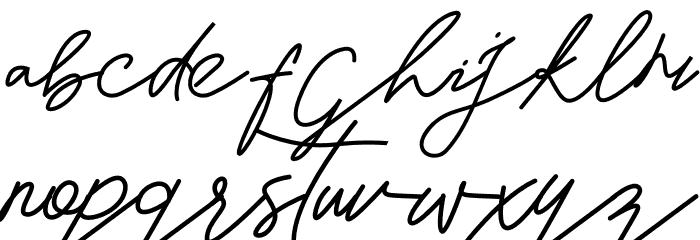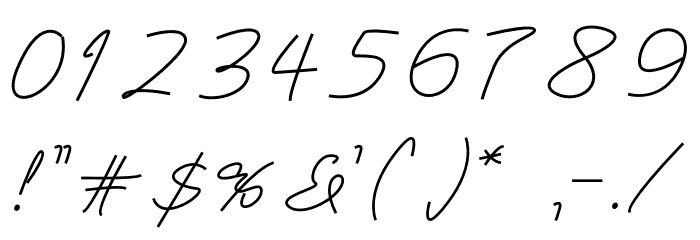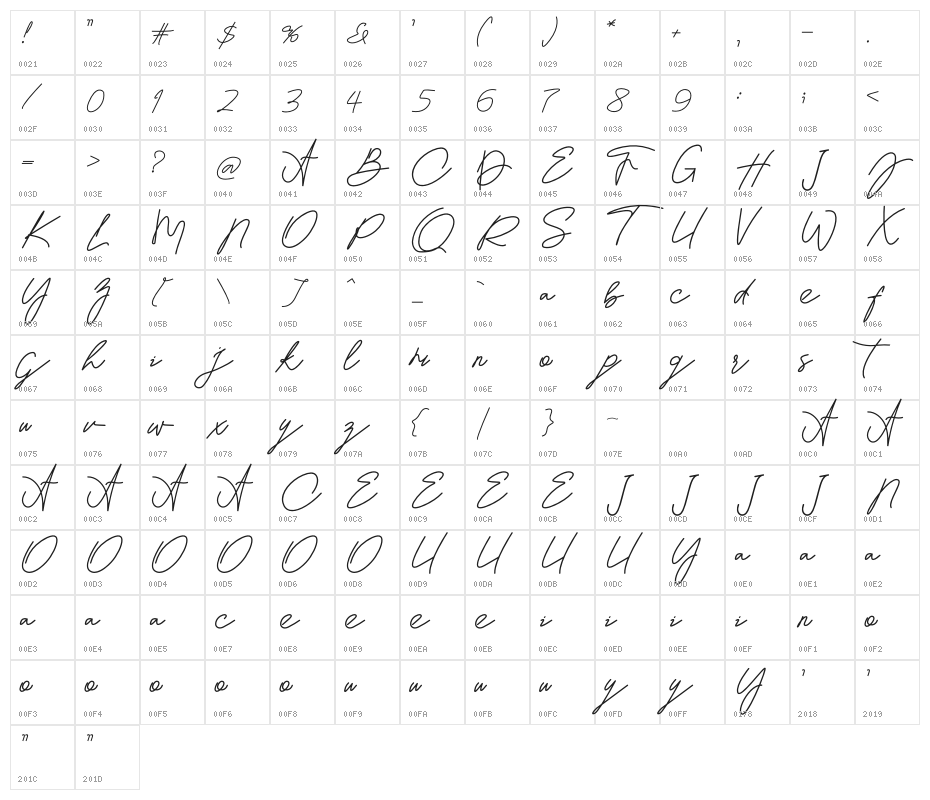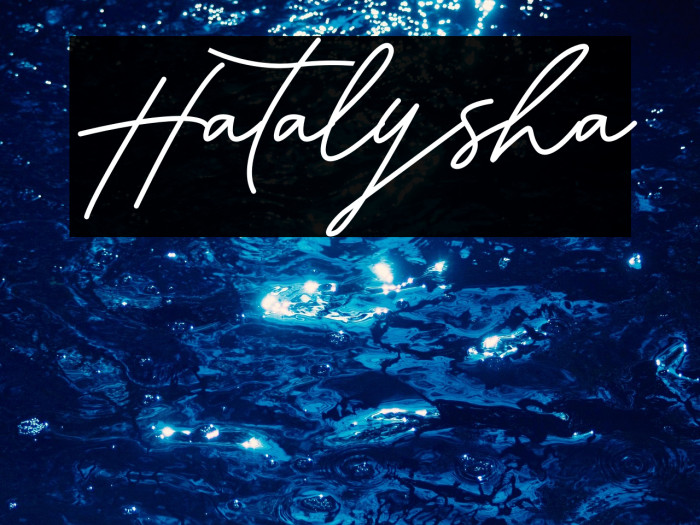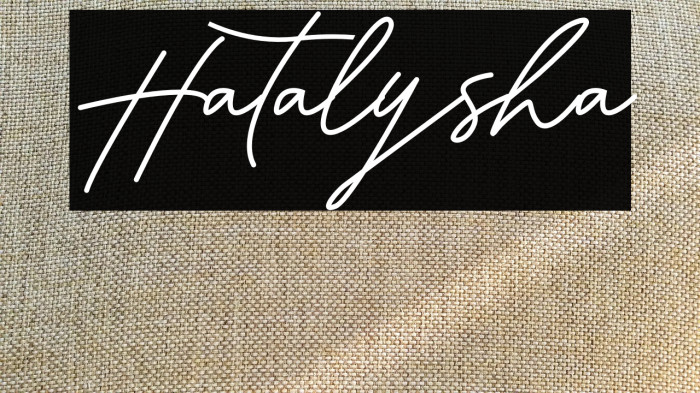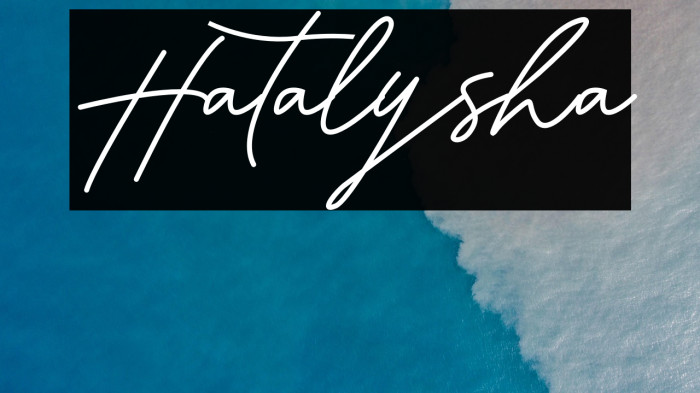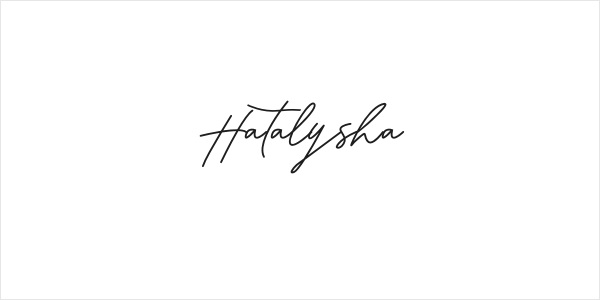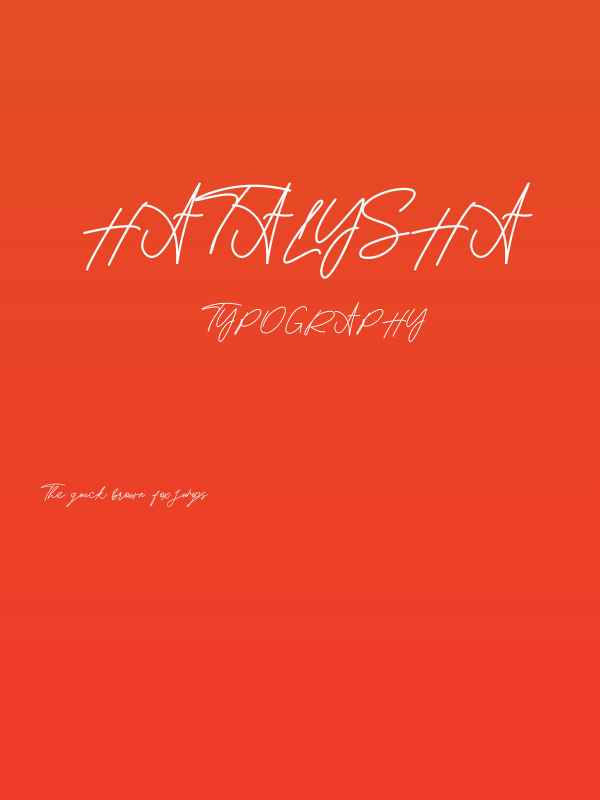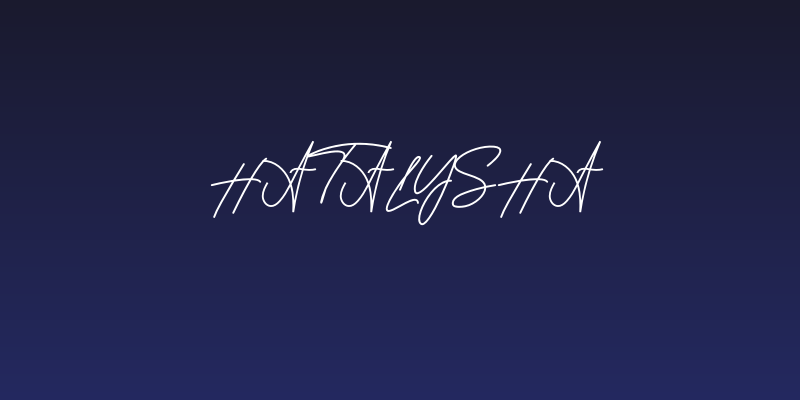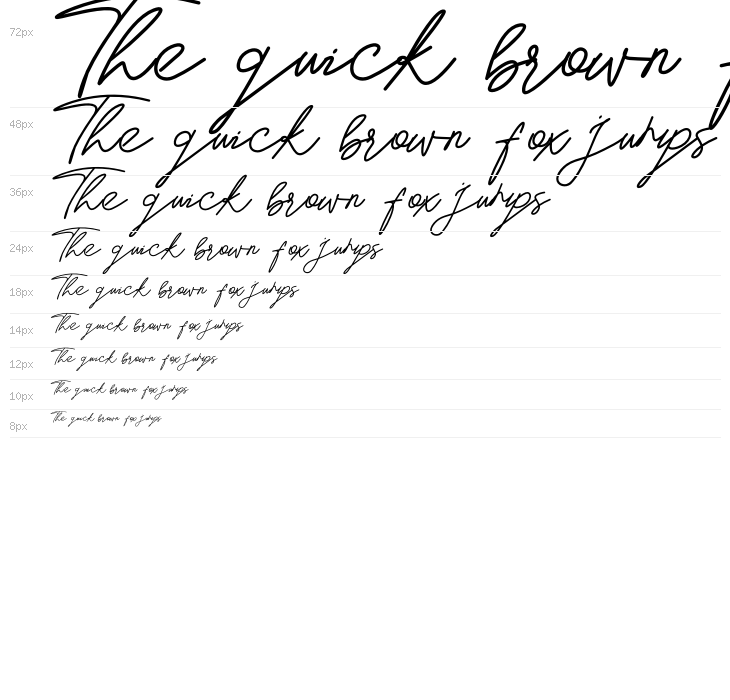
Hatalysha Font
This font features a fluid, cursive style that mimics natural handwriting. The letters are elegantly connected, with a consistent slant that adds a sense of motion and grace. Uppercase letters are distinct and slightly larger, providing a clear contrast with the lowercase letters. The numbers maintain the same flowing style, ensuring uniformity across all characters. Special characters are seamlessly integrated, maintaining the overall aesthetic. The strokes are smooth and continuous, giving the font a personal and artistic touch, ideal for projects that require a human element.
A fluid, cursive font with a natural handwriting style.
- Proposed Projects: Ideal for personal invitations, greeting cards, and branding that requires a personal touch.
- Overall Style: Classic
- Use Case: Logos, Invitations, Personal notes